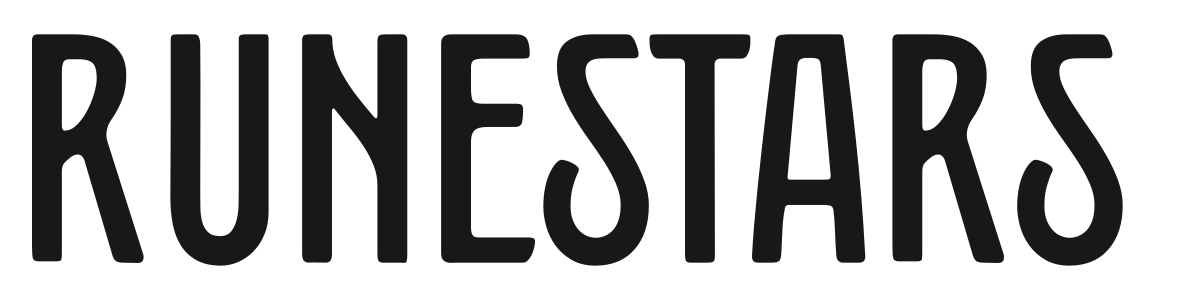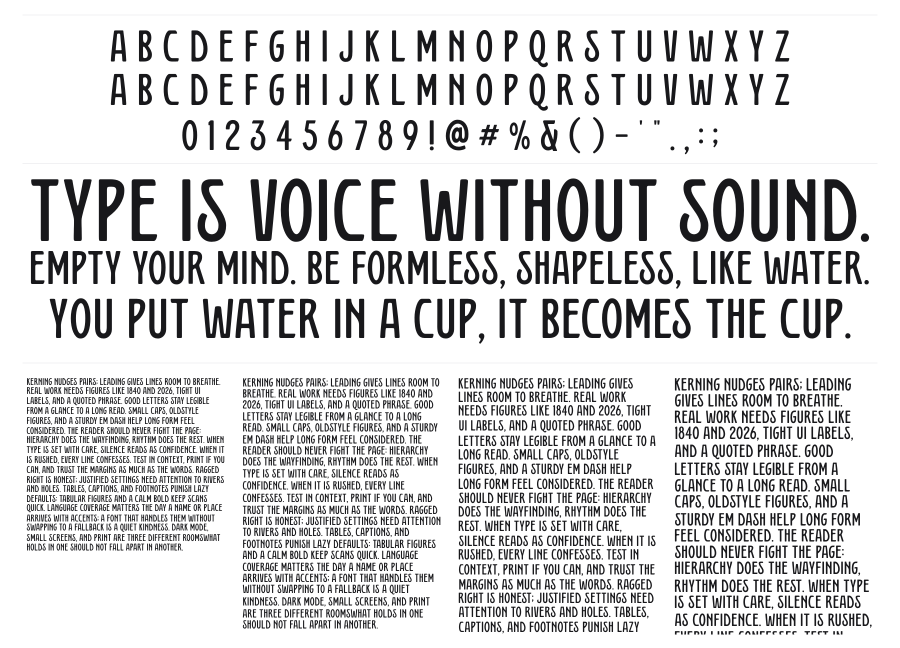
Runestars
Runestars is a condensed organic display sans with tall, narrow proportions and subtle hand-carved irregularities. The slightly tapered strokes and notched terminals give it a rustic, artisanal quality that sits between woodcut signage and contemporary boho branding. It carries a bold visual weight without feeling mechanical.